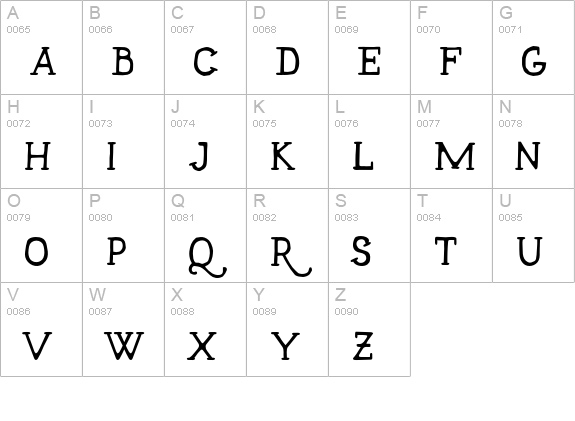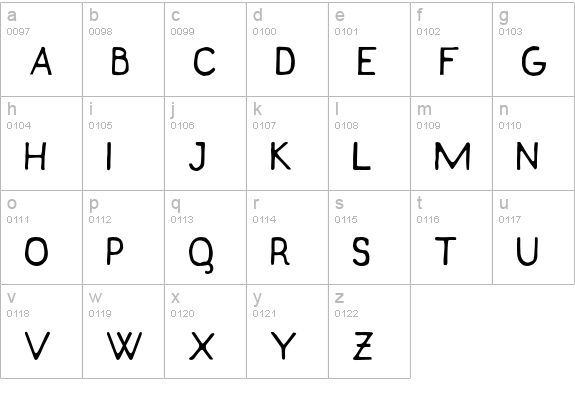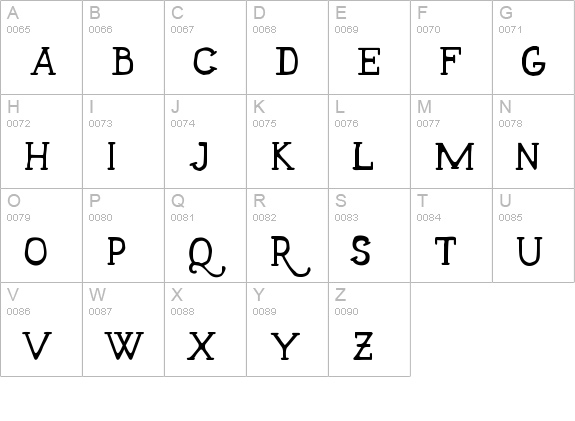
Talisman Free Font Details
Introducing the exquisite Talisman Free font, a versatile typeface that combines elegance with a touch of whimsy. This unique font is perfect for adding a touch of sophistication to any design project, whether it's a logo, branding materials, or even a wedding invitation. Talisman Free font features a harmonious balance between thick and thin strokes, creating an enchanting visual appeal. Its flowing curves and intricate details make every letter a work of art, capturing attention and leaving a lasting impression. The best part? Talisman Free font is freely available to download at FontsMarket.com. This means that you can elevate your design projects without breaking the bank. With just a few clicks, you can access this stunning font and bring your creative visions to life. Whether you're a seasoned designer or a DIY enthusiast, Talisman Free font offers endless possibilities. Its versatility allows it to adapt to a wide range of styles and themes, making it the perfect choice for any project. Let your imagination run wild as you explore the myriad of design options this font provides. Don't miss out on the opportunity to enhance your designs with the captivating Talisman Free font. Download it today at FontsMarket.com and unlock the beauty and elegance it brings to your projects.